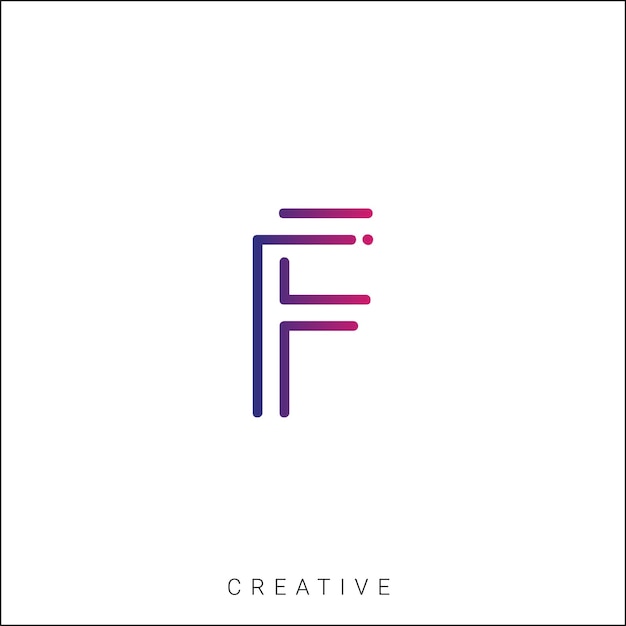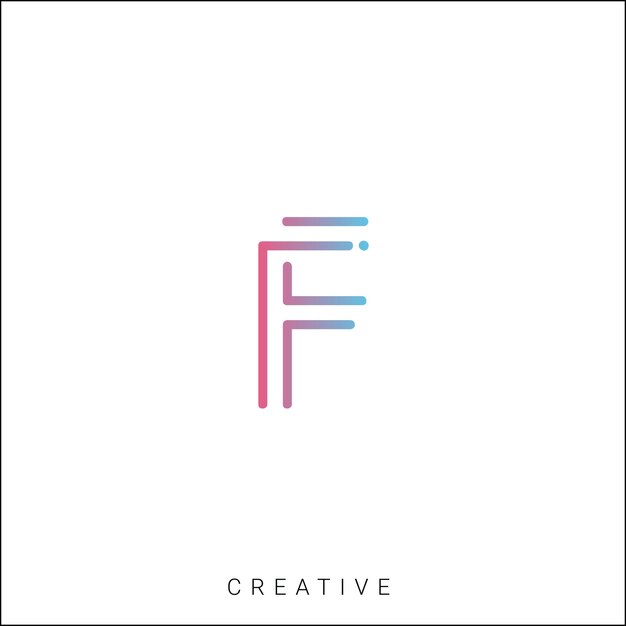
F Latter Logo Template Vector Colorful Monogram Symbol Font Logo Modern Design Initial Based LOGO
A Creative Latter Logo Design Custom Branding Logo Colorful Logo Design Premium Logo Design